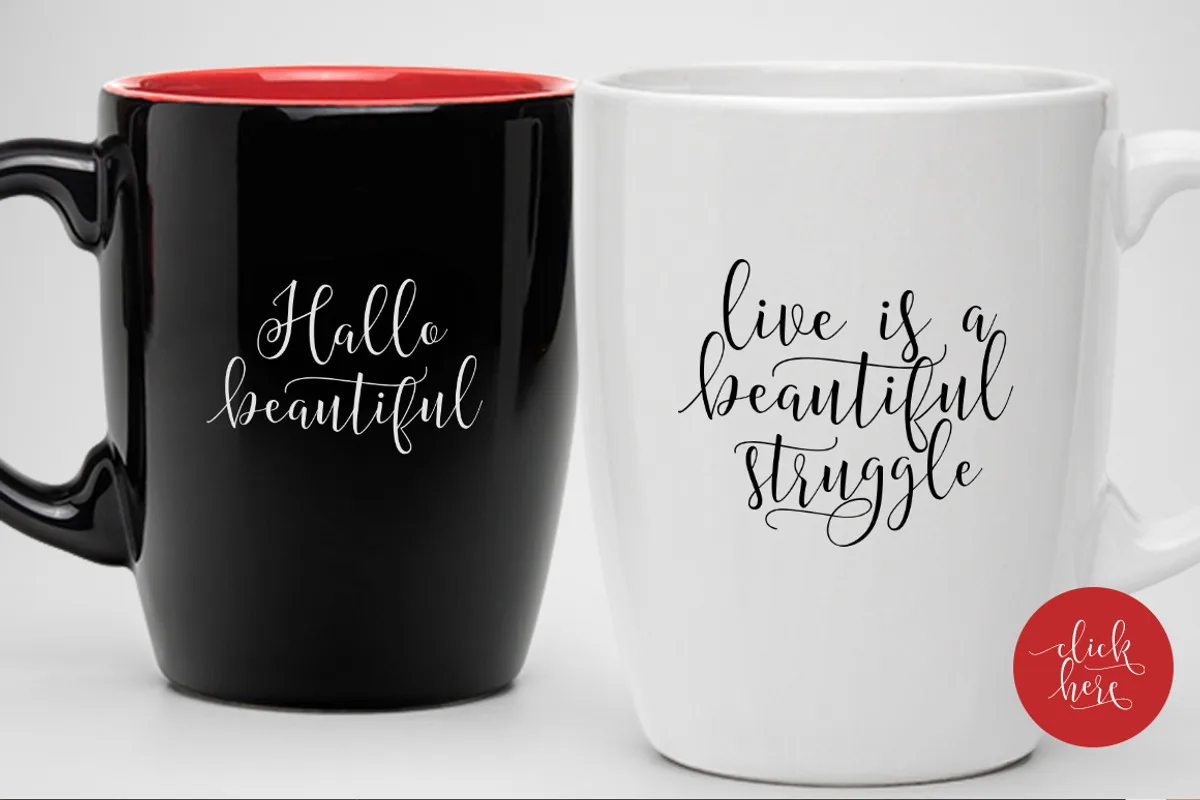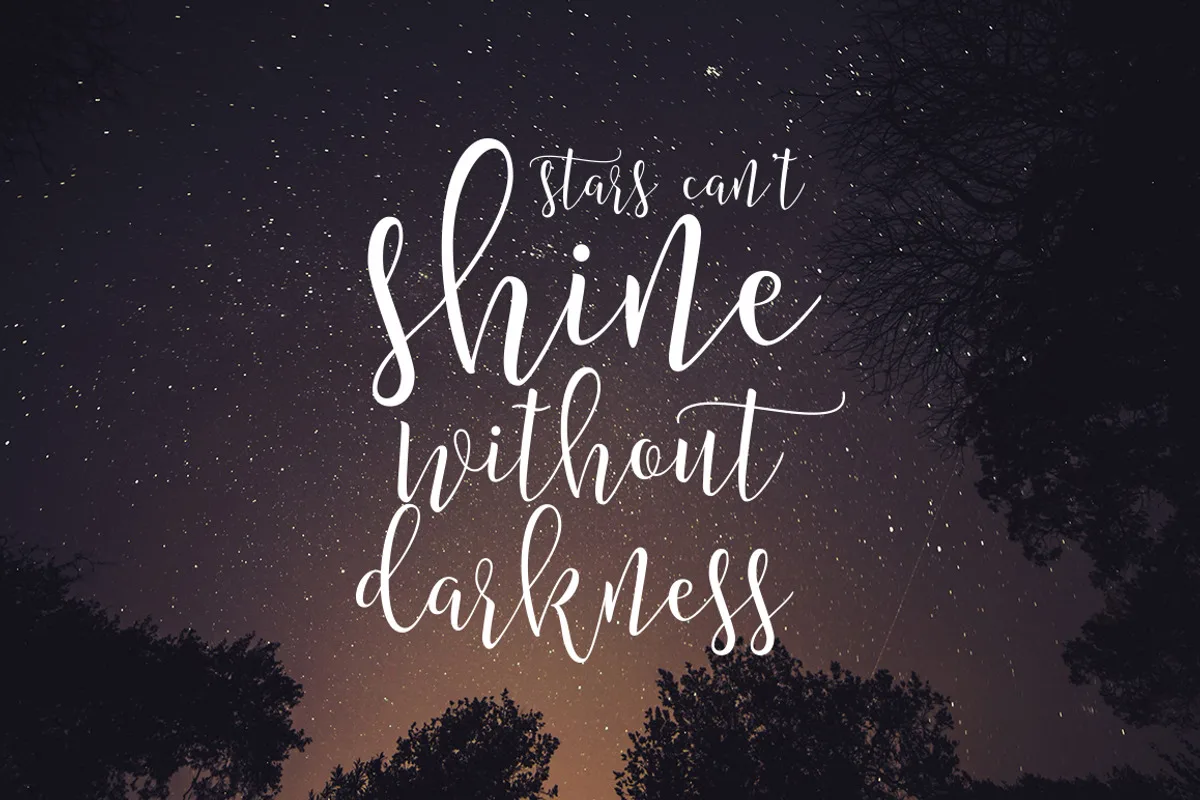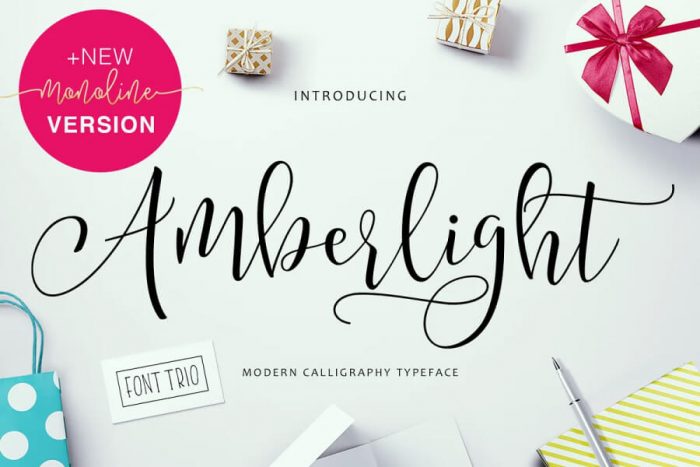
Introducing Amberlight Script – a new fresh & modern script with a sweet calligraphy-style, decorative characters and a dancing baseline! So beautiful on invitation like greeting cards, branding materials, business cards, quotes, posters, and more!
Amberlight come with 335 and 120 New Stylistic Sets and Swash Characters. The alternative characters were divided into several OpenType features such as Stylistic Sets, Contextual Alternates, and Ligature. The OpenType features can be accessed by using OpenType savvy programs such as Adobe Illustrator and Adobe InDesign.